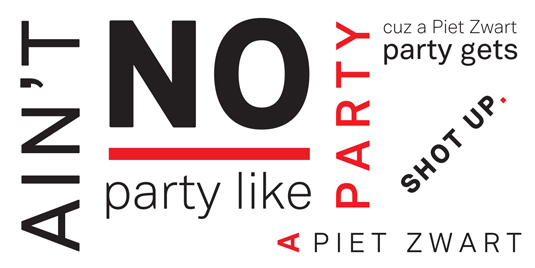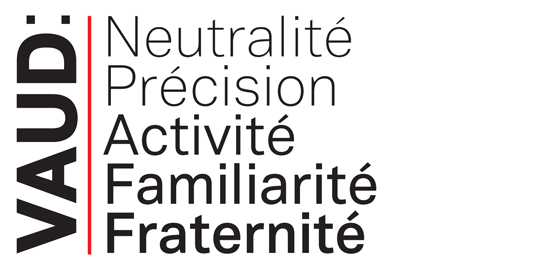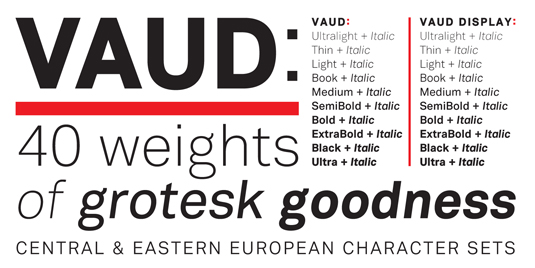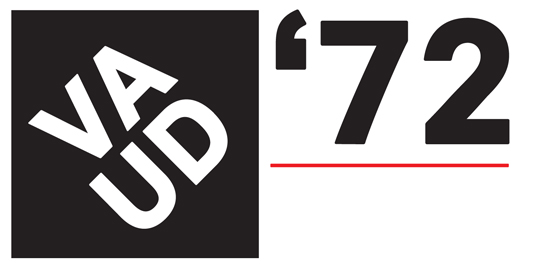
Font of the day: Vaud
Every day we showcase the best fonts on the web. Today it's Vaud by Wordshape.
Vaud by Wordshape
Today's font of choice is Vaud by Wordshape. It is described as "a family of 40 weights of neutral, yet formally nuanced grotesk typefaces that takes inspiration from Helvetica, Akzidenz Grotesk, Univers and the original metal types from Switzerland, yet had a slightly larger x-height for more pronounced legibility".